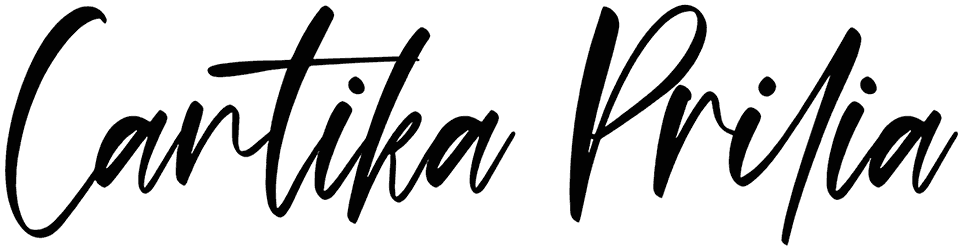
Cantika Prilia Font
Having a flawless script font the same as the Cantika Prilia would be totally tempting for any graphic artist who craves to design timeless artwork. Since it offers two distinctive styles, it lets you add a fresh breath to all of your creative content, such as posters, stickers, business cards, gift cards, or illustrations.